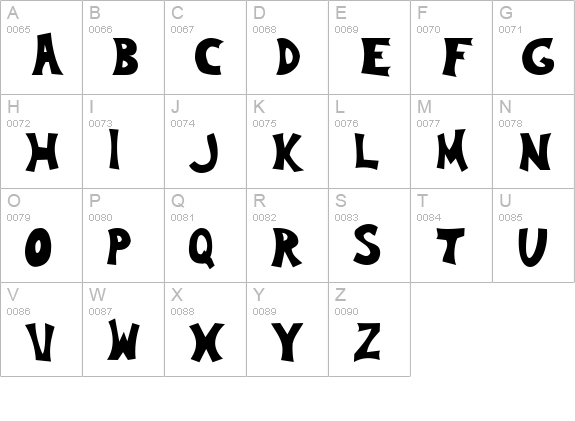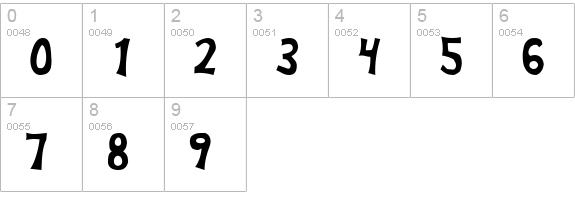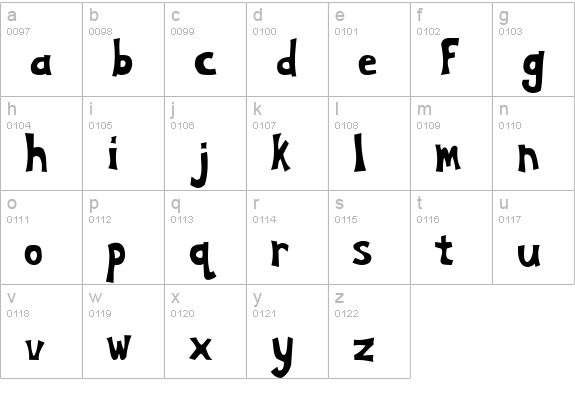
Silly Annie normal Font Details
Silly Annie normal is the standard, neutral variant in the Silly typeface family \xE2\x80\x94 well suited to general body text, paragraphs, and standard typographic work.
Silly Annie is a whimsical and playful font that perfectly captures the essence of silliness and joy. Its smooth curves and quirky letterforms add a touch of fun to any project or design. Whether you're creating a children's book, a birthday invitation, or a playful logo, Silly Annie will bring a smile to everyone's face. What makes Silly Annie even more amazing is that it is freely available to download at FontsMarket.com. You read that right - this delightful font can be yours without spending a penny! FontsMarket.com is dedicated to providing high-quality fonts at no cost, and Silly Annie is just one example of their generosity. With its wide range of characters and ligatures, Silly Annie offers endless possibilities for creative expression. From its bouncing uppercase letters to its whimsical lowercase forms, this font is full of character and charm. It is perfect for adding a touch of whimsy to your designs, and its versatility makes it suitable for a variety of projects. So, why wait? Download Silly Annie today and let your imagination run wild. Whether you're a professional designer, a hobbyist, or simply someone who loves to add a bit of silliness to their life, this font is a must-have. Get ready to bring a burst of laughter and joy into your creations with the freely available Silly Annie font from FontsMarket.com.